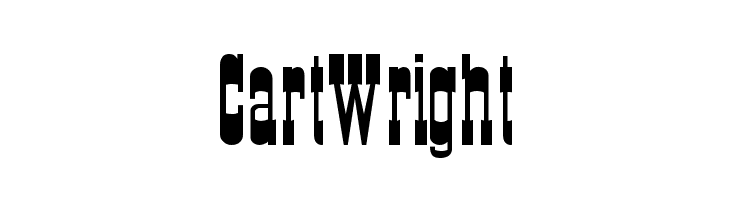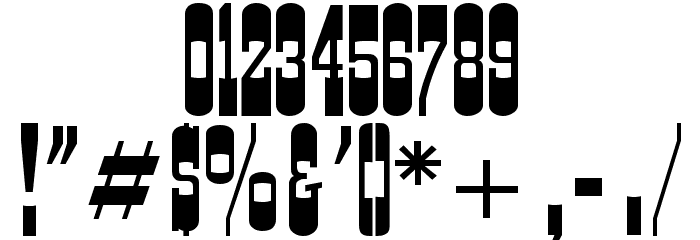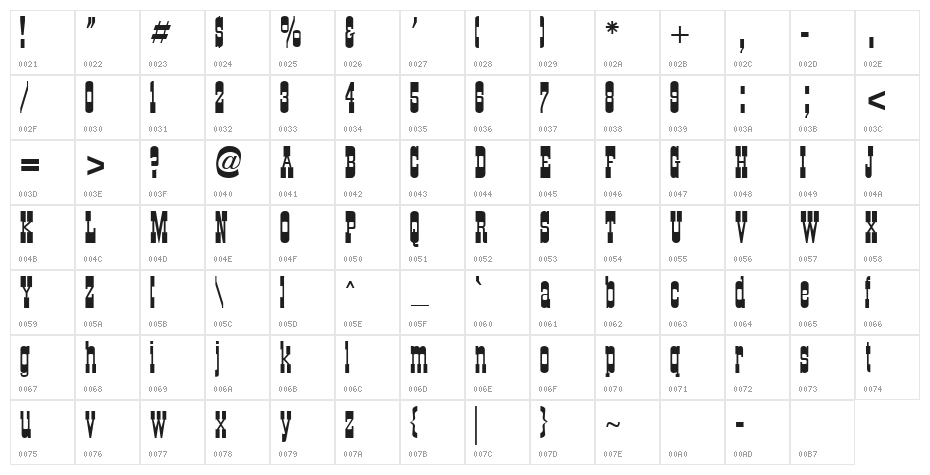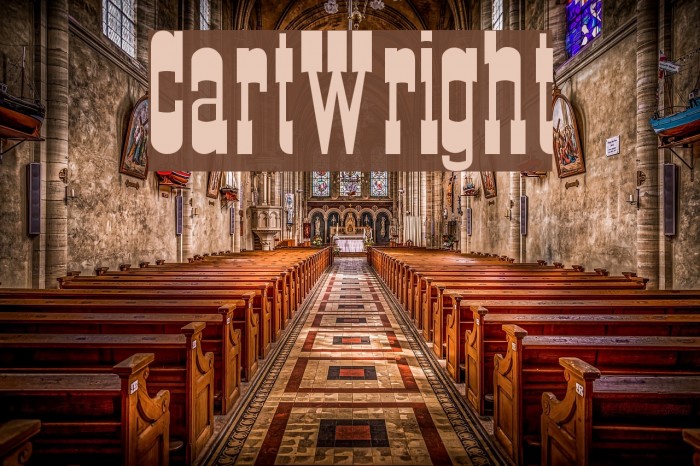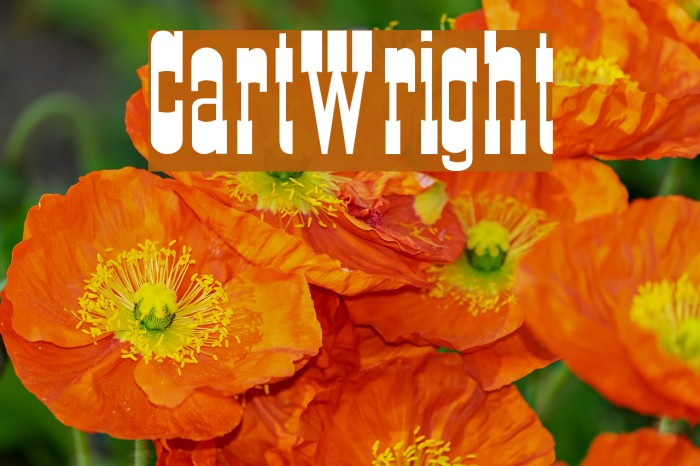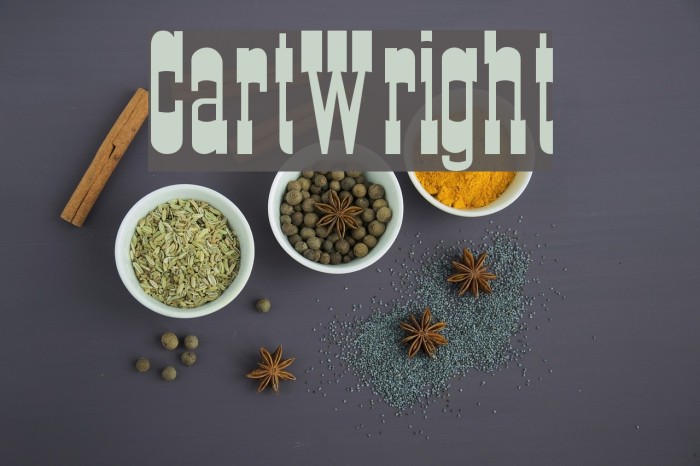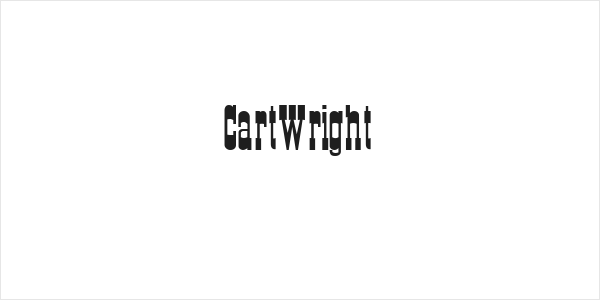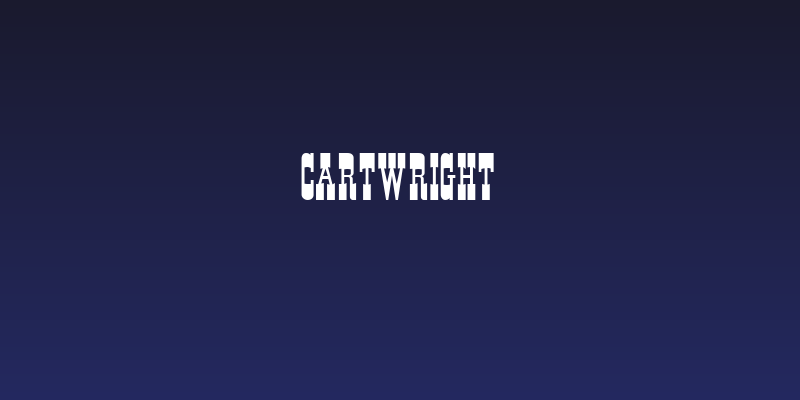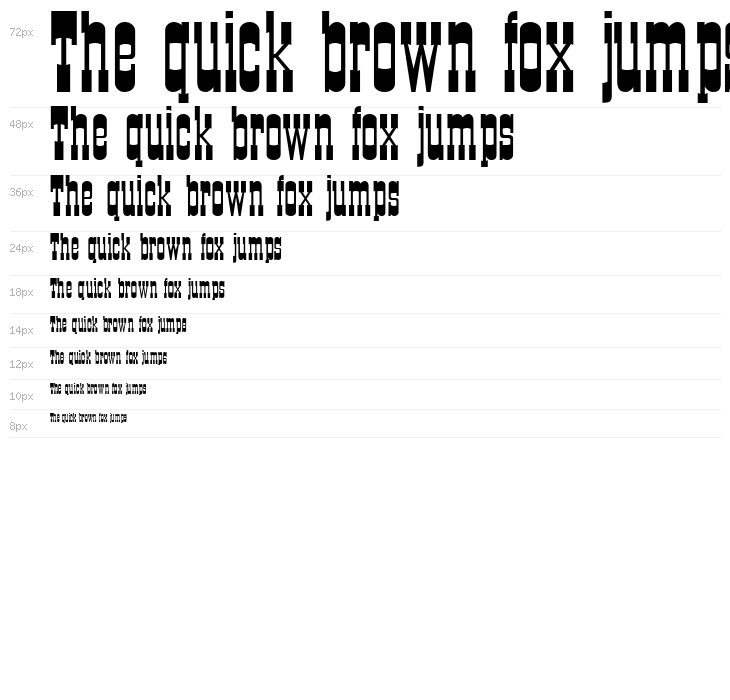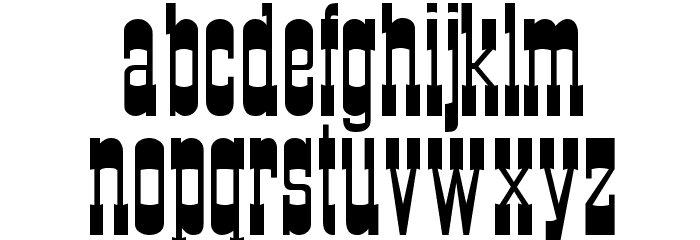
CartWright Font
CartWright Description
This font features a bold and impactful design with a strong presence. The characters are tall and narrow, creating a condensed appearance that emphasizes verticality. The strokes are thick and consistent, contributing to a high contrast between the characters and the background. The uppercase and lowercase letters maintain a uniform style, with slight variations in the curves and angles that add a touch of uniqueness. The numerals are equally bold, ensuring readability and consistency throughout. Special characters are designed to match the overall aesthetic, making this font suitable for attention-grabbing headlines and titles.